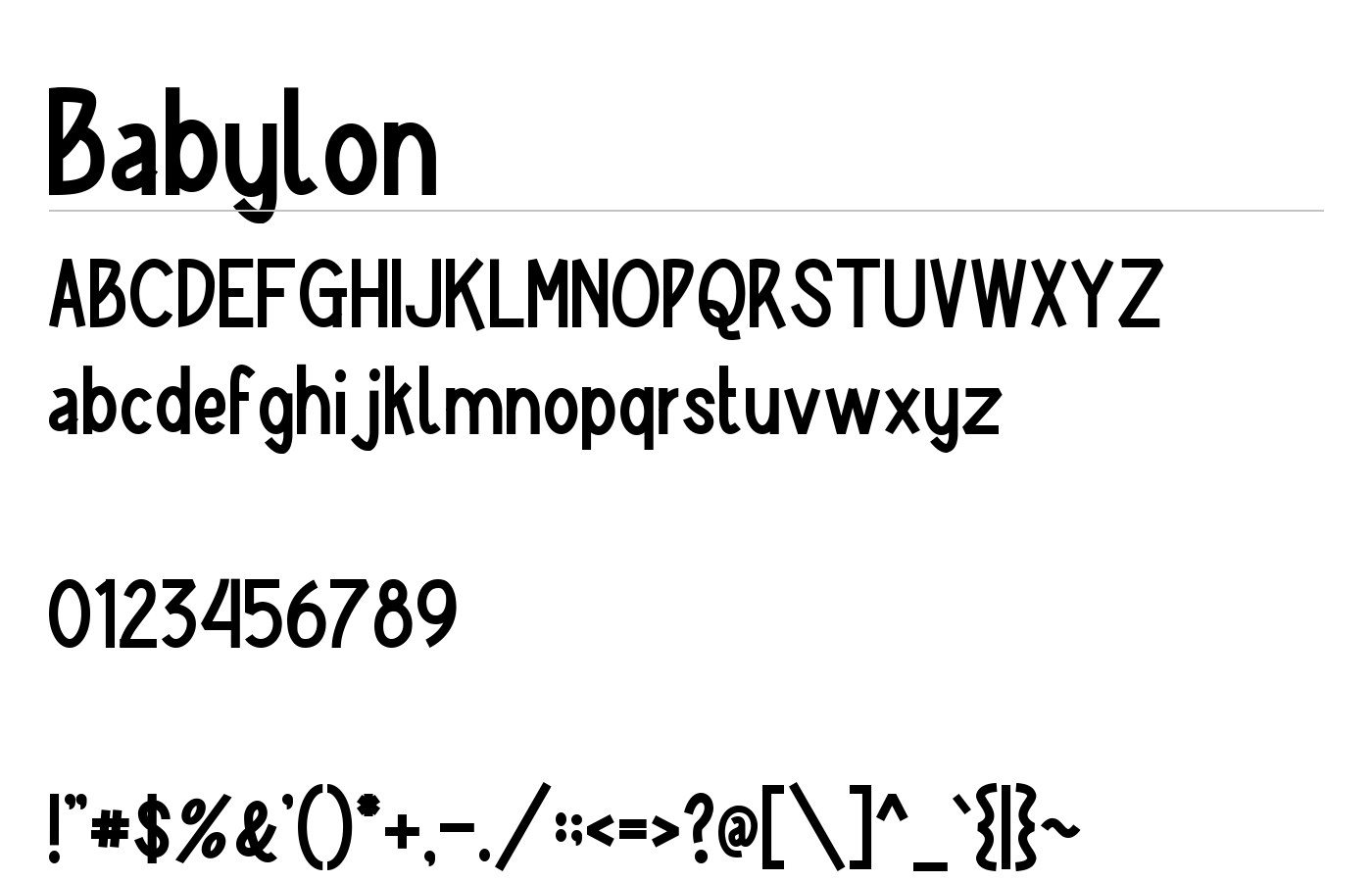
Babylon is a distinctive sans serif font with playful, slightly irregular letterforms that give it a quirky, hand-crafted feel. Its tall x-height and moderate contrast make it legible, while unique character shapes add personality, making it ideal for creative branding, headlines, and editorial projects that want to convey a friendly and approachable vibe. This font works well where a casual yet confident tone is needed, standing out without sacrificing clarity.
Babylon Font
About Babylon Font
| Font family | Babylon Font |